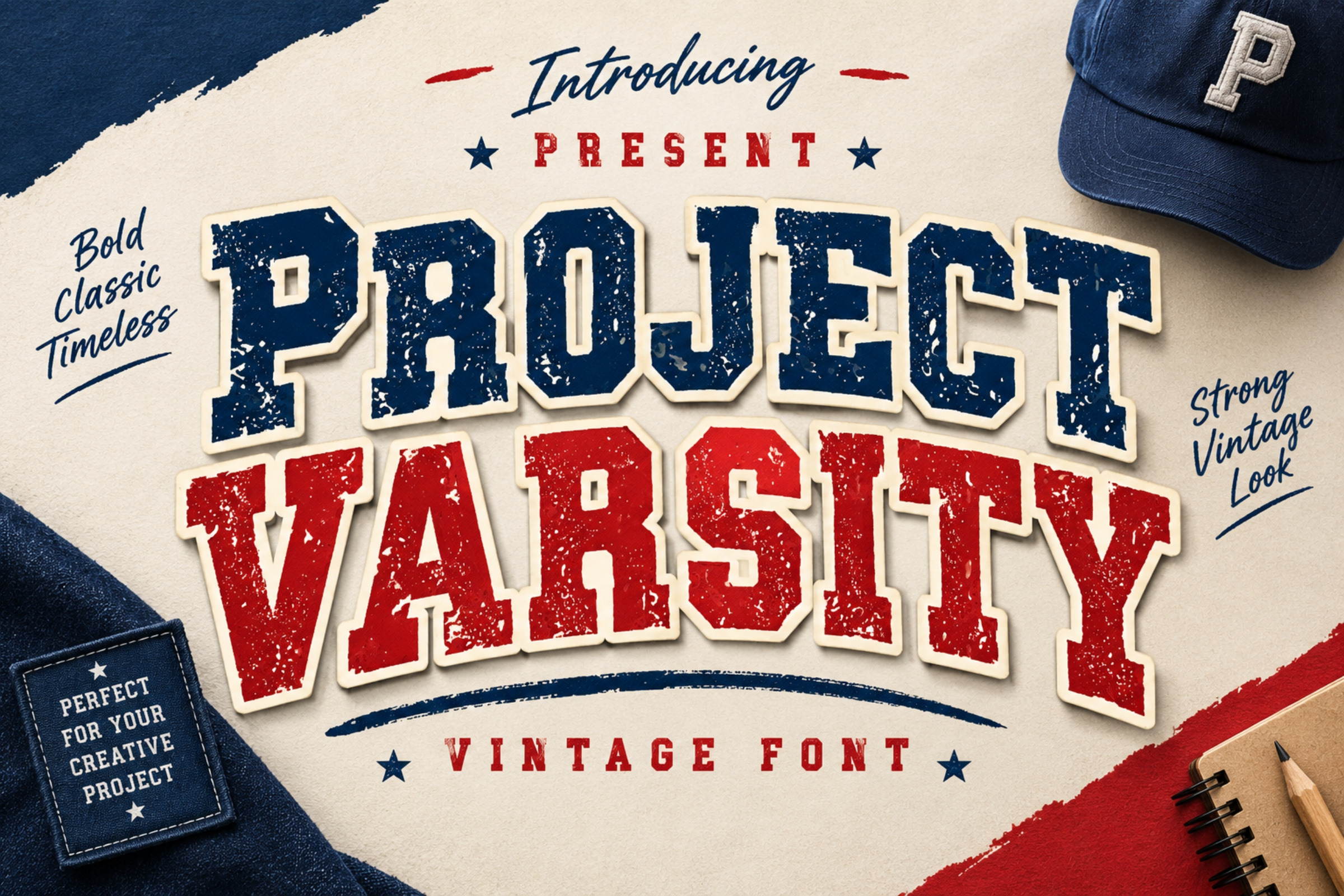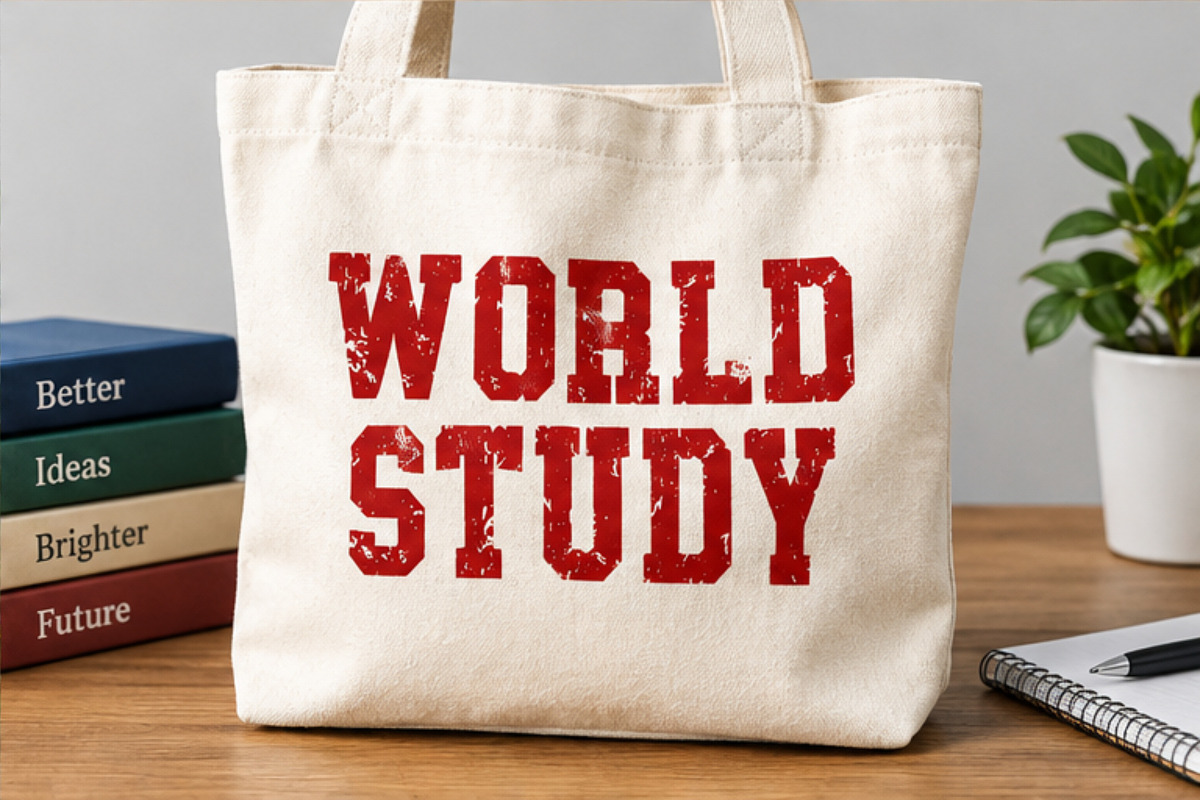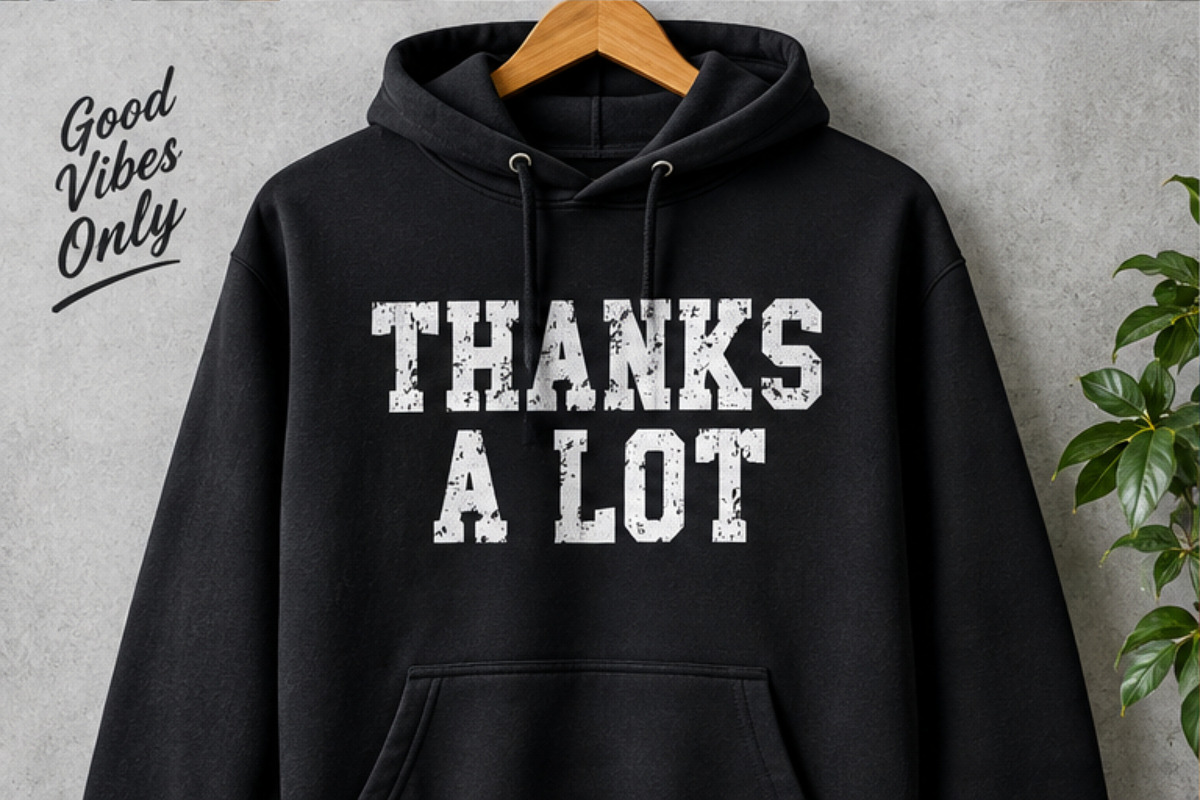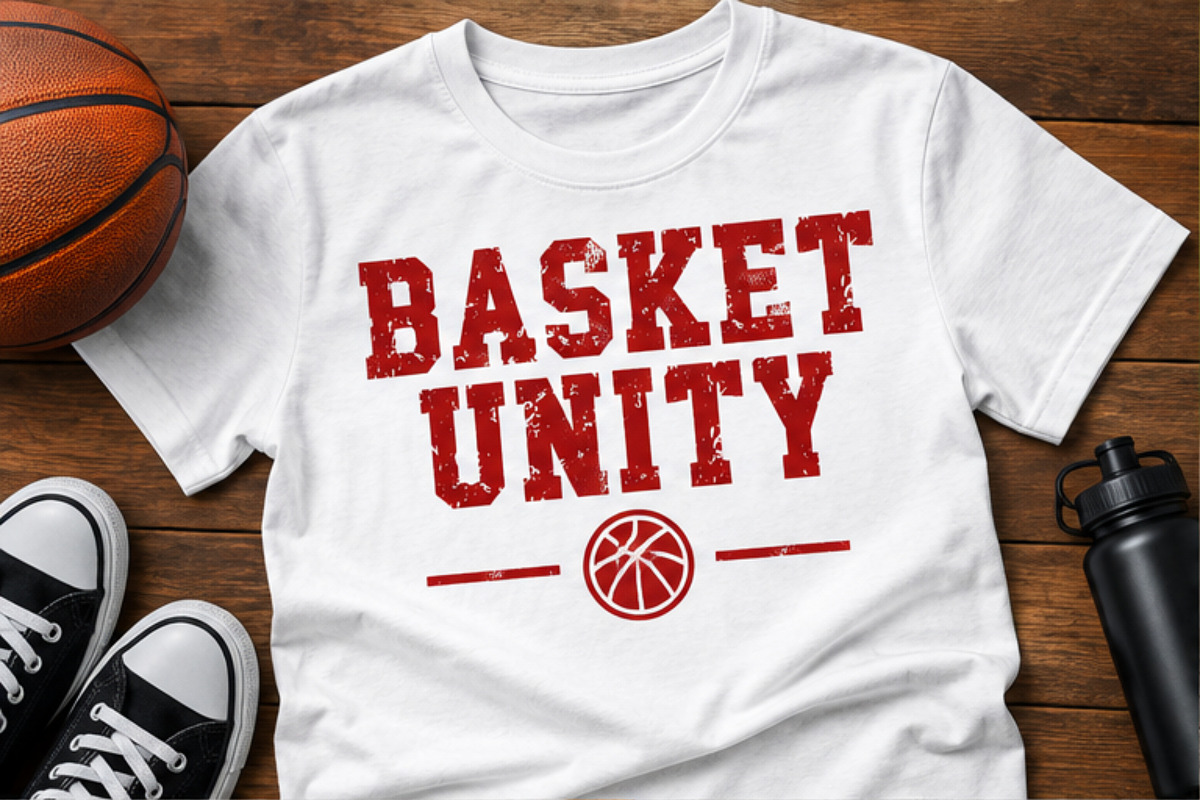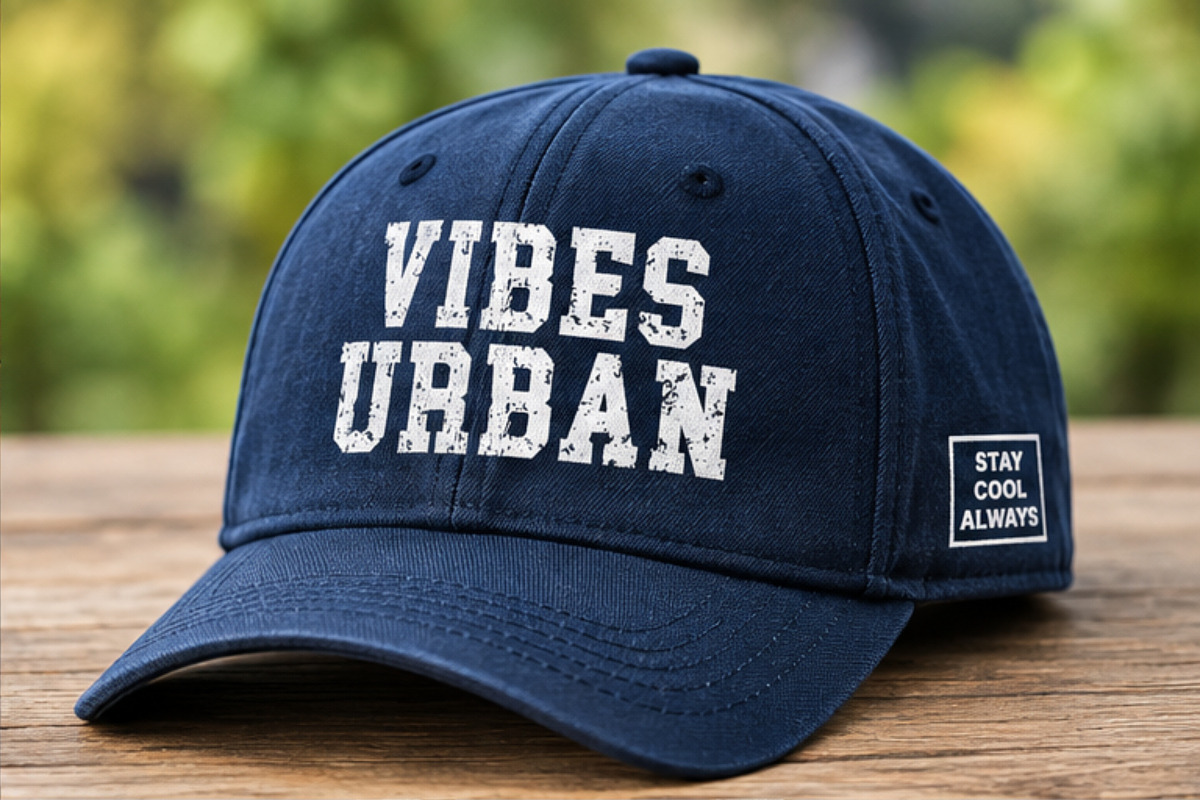
Project Varsity - Vintage Font
Project Varsity is a bold and rugged varsity-style display font inspired by classic college, sports, and vintage athletic lettering. Its strong slab-serif shapes and distressed texture give your designs an authentic retro character with a powerful, sporty feel.
Perfect for T-shirts, team jerseys, sports branding, college graphics, posters, logos, stickers, caps, hoodies, merchandise, and vintage-inspired designs.
– Bold varsity / collegiate style – Distressed vintage texture – Strong and highly readable characters – Perfect for sports and streetwear designs – Great for print and digital projects – Uppercase display lettering
Ideal For: Sports • College • University • Team Branding • Jerseys • T-Shirts • Hoodies • Caps • Posters • Logos • Stickers • Streetwear • Vintage Designs • Athletic Merchandise